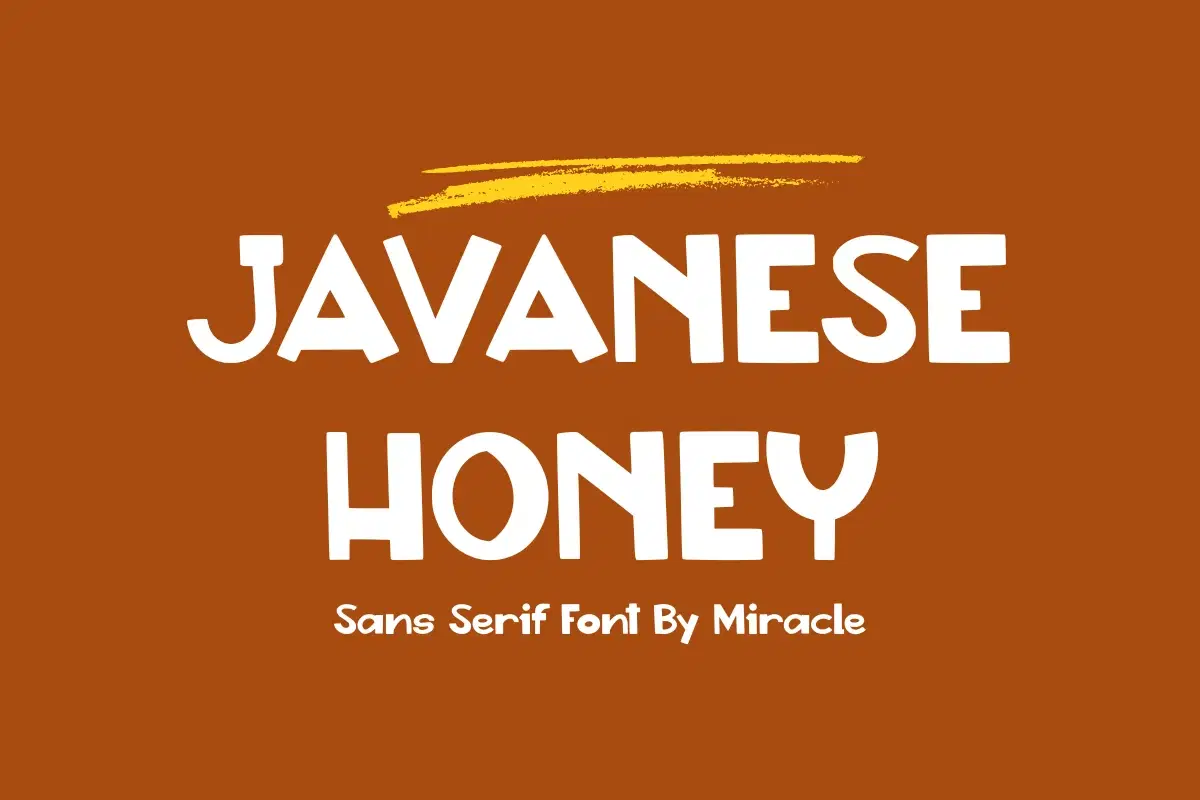
Experience the rich and bold character of Javanese Honey, a striking sans serif font by Miracle. Featuring heavy, chunky letterforms with a smooth and friendly finish, this font is designed to bring a sense of warmth and professional strength to your creative projects. It is the perfect choice for designs that need to look substantial, modern, and inviting all at once.
Javanese Honey is built for high-impact display use. Its thick strokes and well-balanced proportions ensure maximum legibility, making your headlines stand out beautifully against rich, earthy tones or vibrant backgrounds.